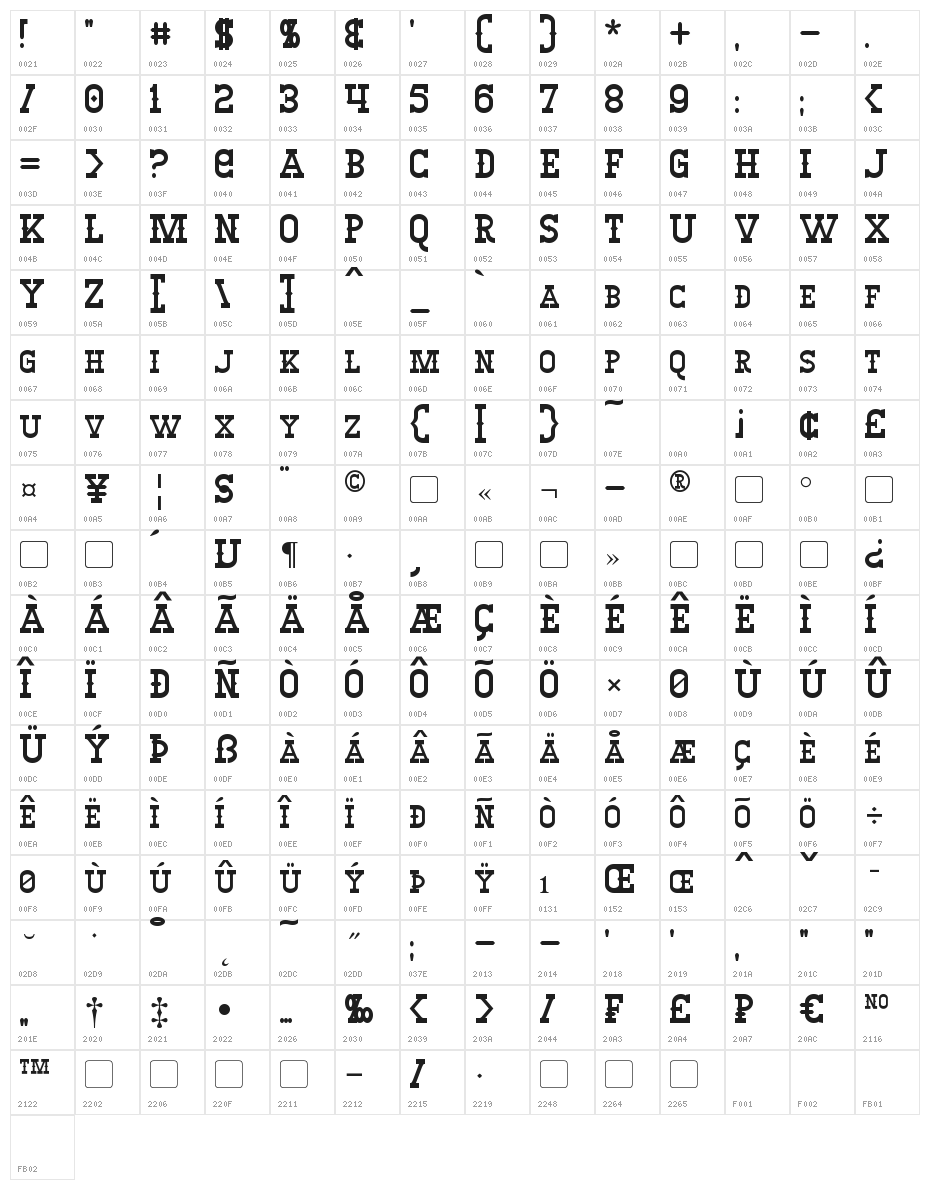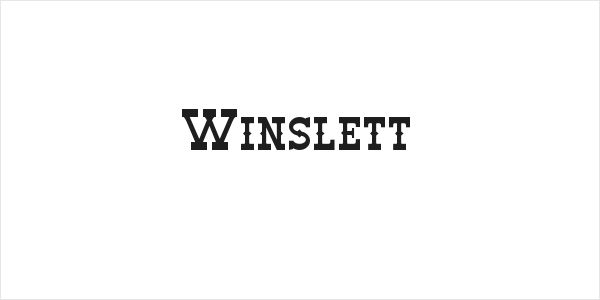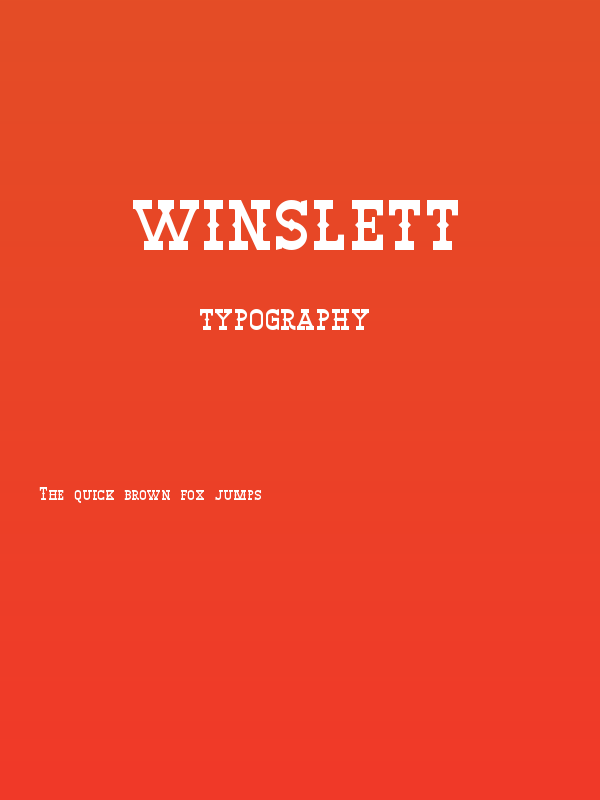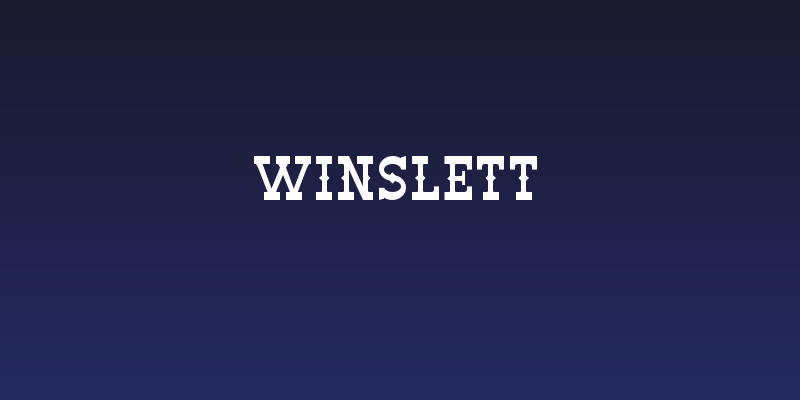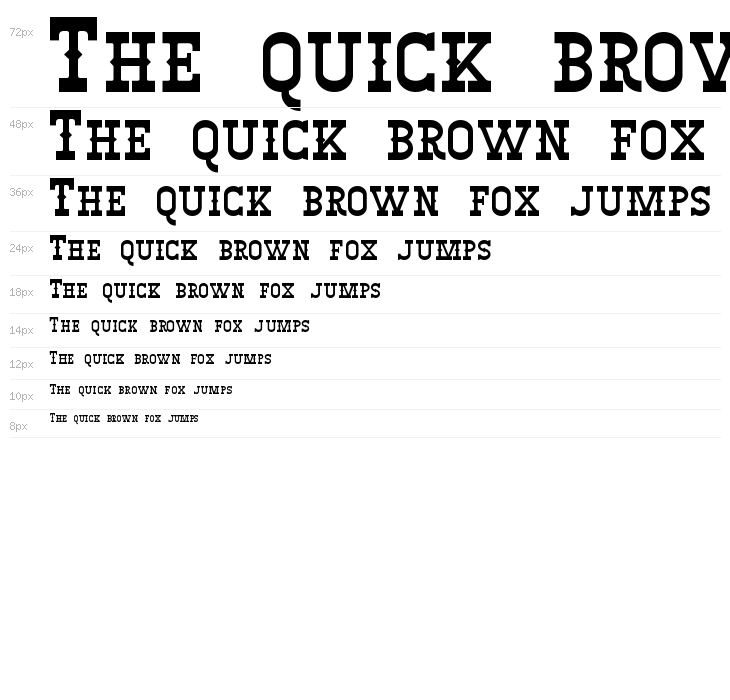
Winslett Font
Winslett Description
This font features a bold, slab serif style with strong, block-like serifs that give it a robust and authoritative appearance. The characters are uniformly wide, contributing to a sense of stability and strength. The uppercase letters are particularly striking, with a consistent height and width that make them ideal for impactful headlines. The numerals and special characters maintain the same boldness, ensuring consistency across all text elements. The font's design is reminiscent of vintage typefaces used in posters and signage, yet it retains a modern edge that makes it versatile for contemporary use.
| Proposed Projects | Ideal for use in posters, signage, branding projects, and any design requiring a strong, impactful typeface. |